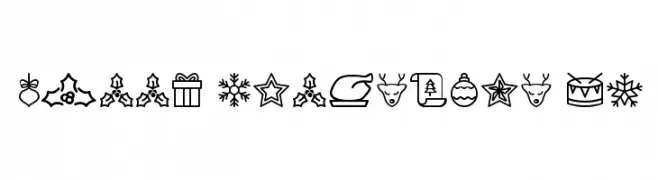
( Fonts by Billy Argel Fonts ® )
A bold, textured font with intricate patterns and a striking, artistic style.
( Fonts by Billy Argel Fonts ® )
A bold, textured font with a dynamic, brush-like appearance.
( Fonts by Gilang Ternadho )
A bold, decorative font with a mechanical, industrial design featuring dotted patterns.
( Fonts by HansCo )
A bold, decorative font with American flag motifs, featuring stars and stripes.
An elegant serif font with refined strokes and balanced proportions.
A bold, decorative font with a three-dimensional effect and intricate patterns.
( Fonts by HansCo )
A whimsical, ornamented font perfect for festive occasions.
A hand-drawn, textured font with a mesh-like appearance, offering a playful and artistic style.